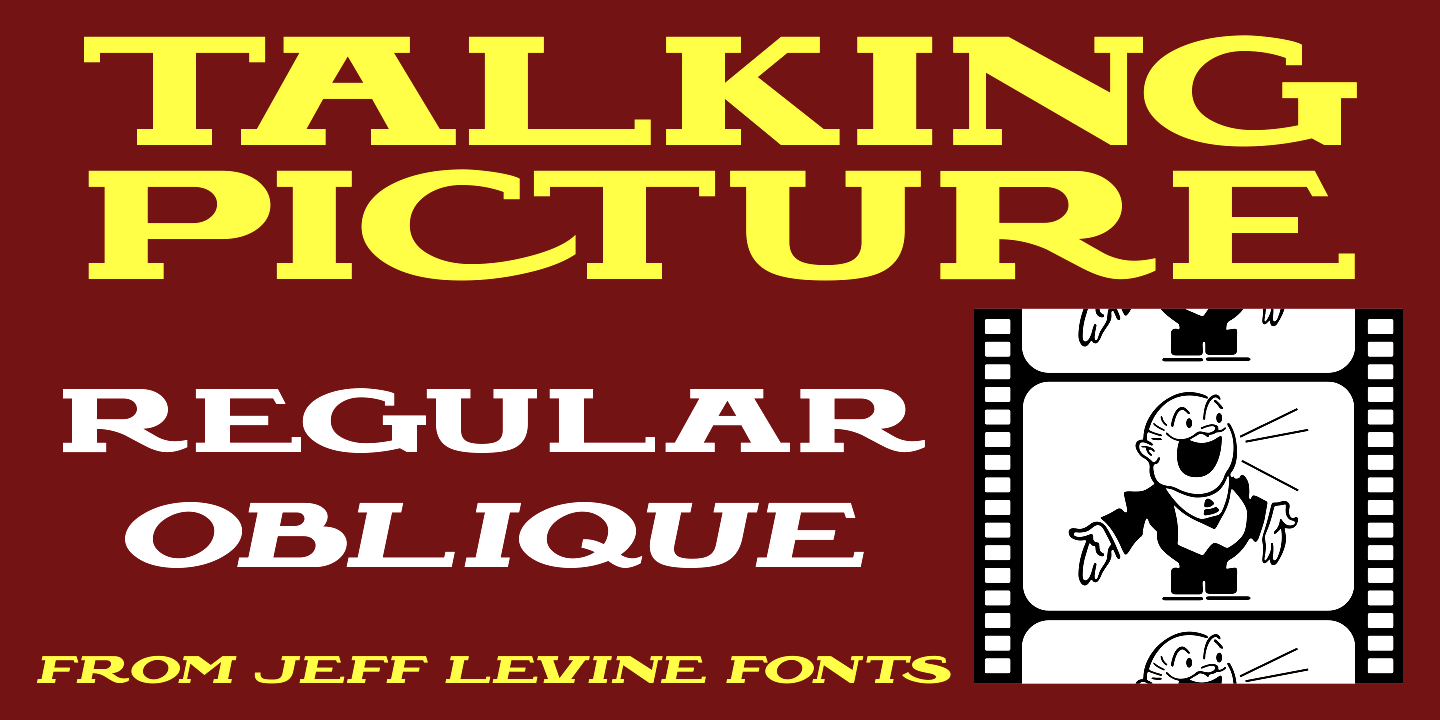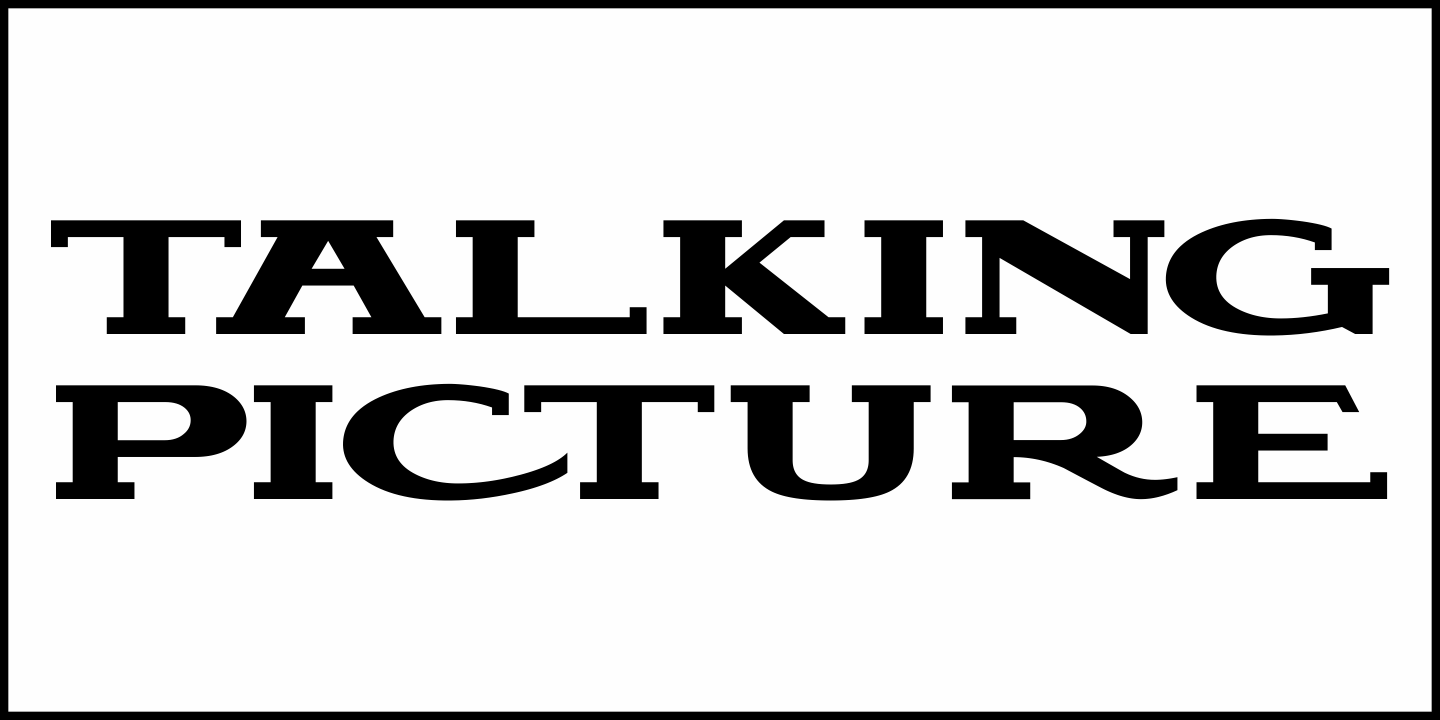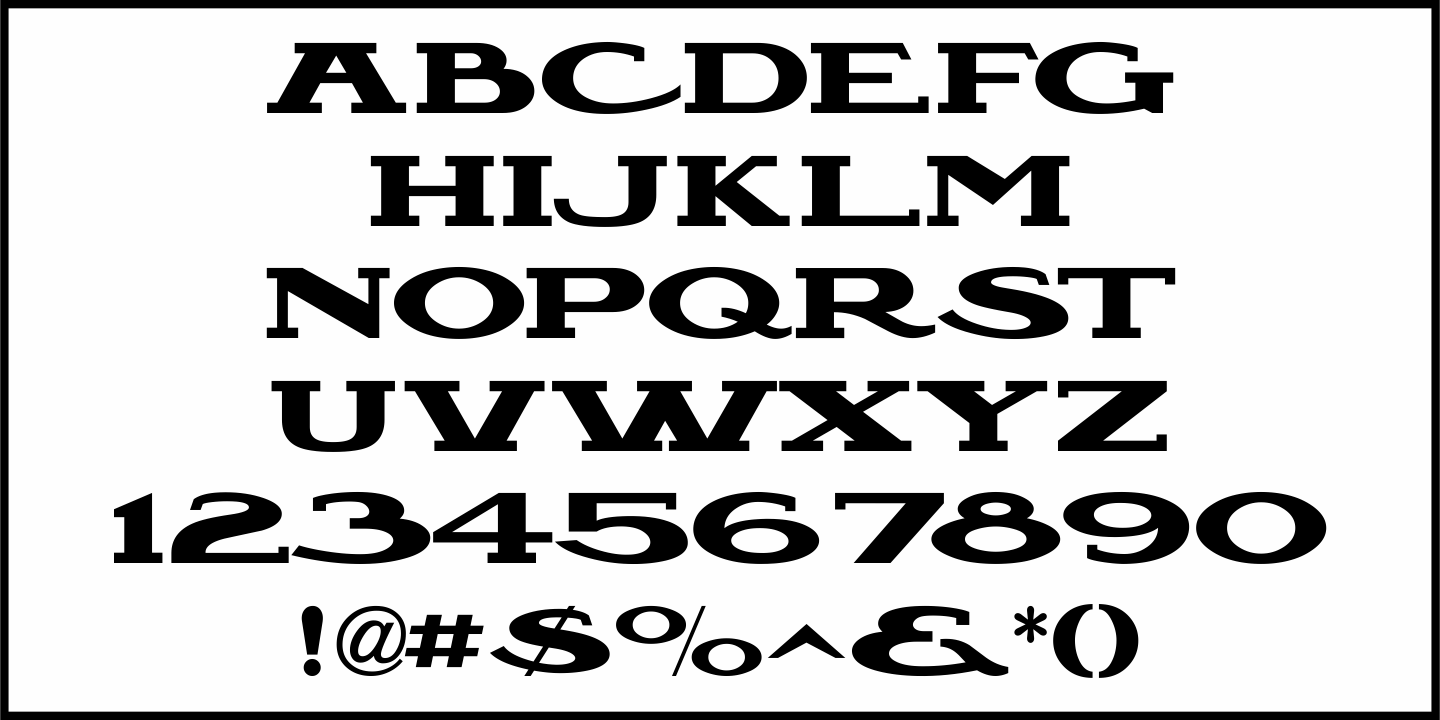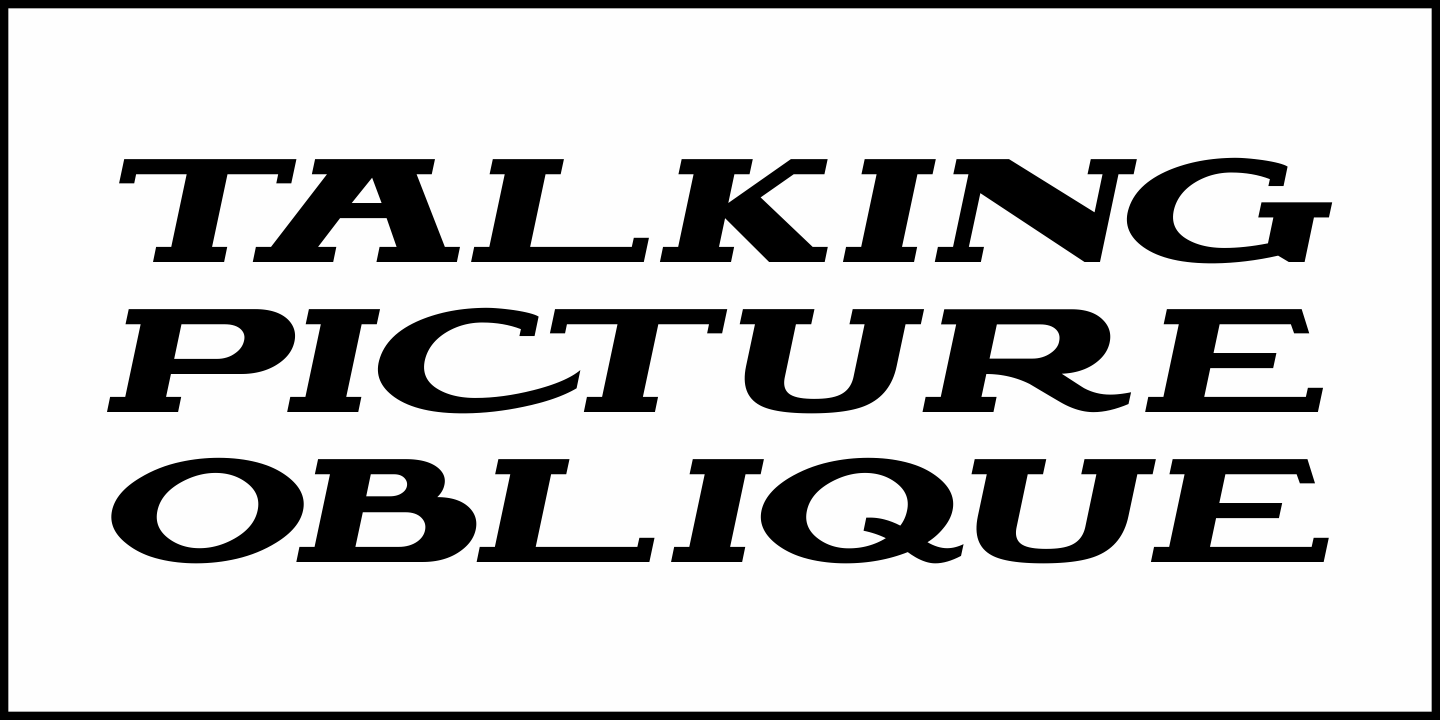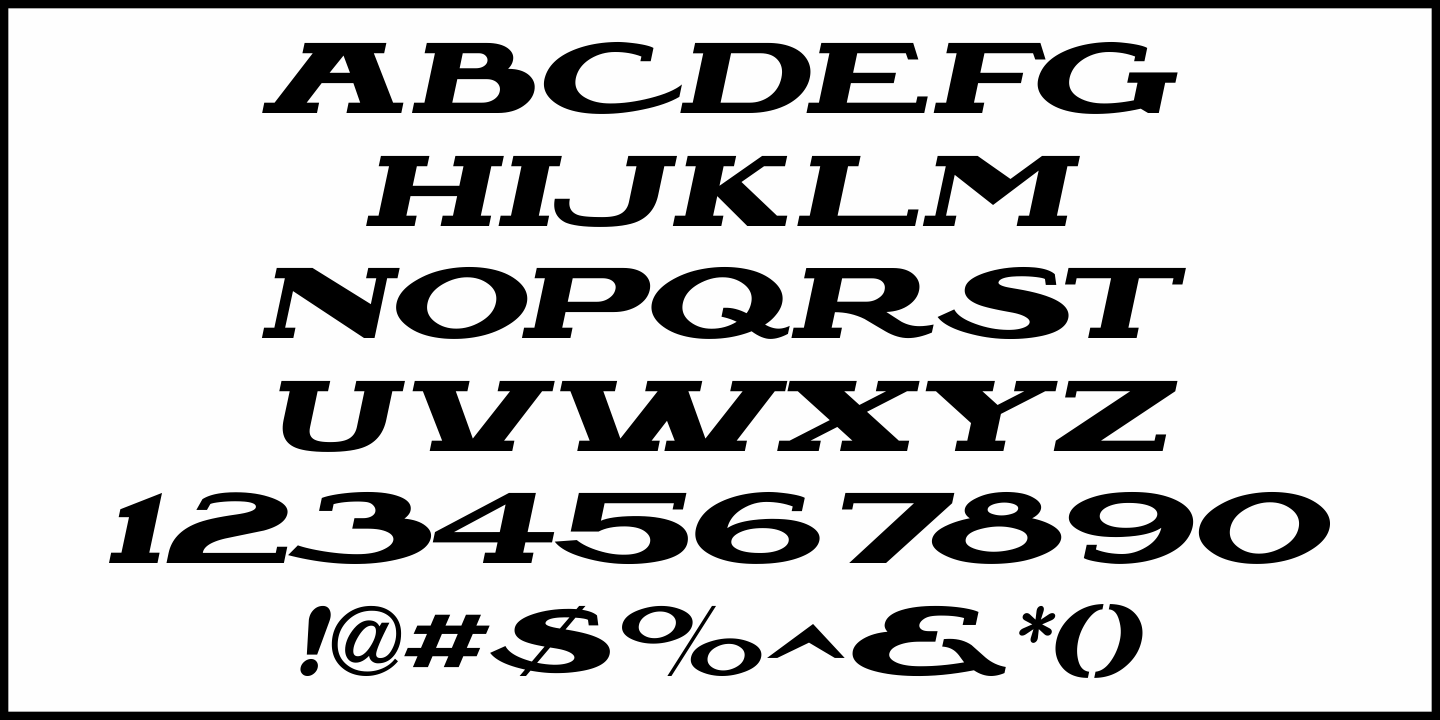
Talking Picture
In a vintage photograph, promotional signage outside an old theater for the 1929 early sound film 'The Doctor's Secret' had lettering in a wide, bold Art Nouveau slab serif design.
This was the model for Talking Picture JNL, which is available in both regular and oblique versions.